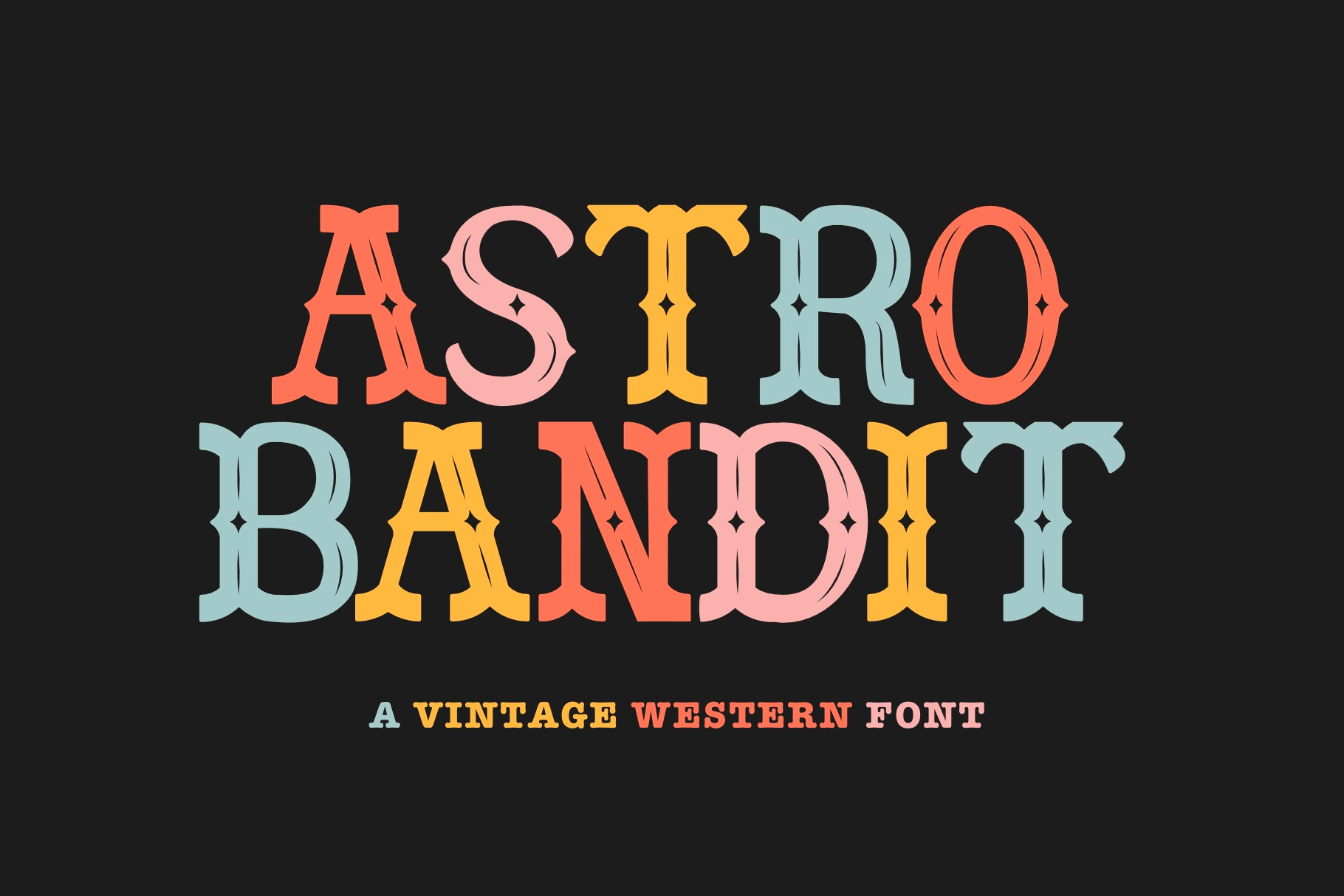
Astro Bandit Font - Serif Font
Astro Bandit is a captivating Serif Font that seamlessly blends sophistication with the rugged charm of Western aesthetics. This typeface available in SVG format, compatible with advanced tools such as Cricut and Glowforge, and for use in Procreate. This typographic gem pays homage to the timeless spirit of the Old West, capturing the essence of adventure and authenticity. With its carefully crafted serifs, Astro Bandit exudes a classic elegance, making it a versatile choice for various design projects.